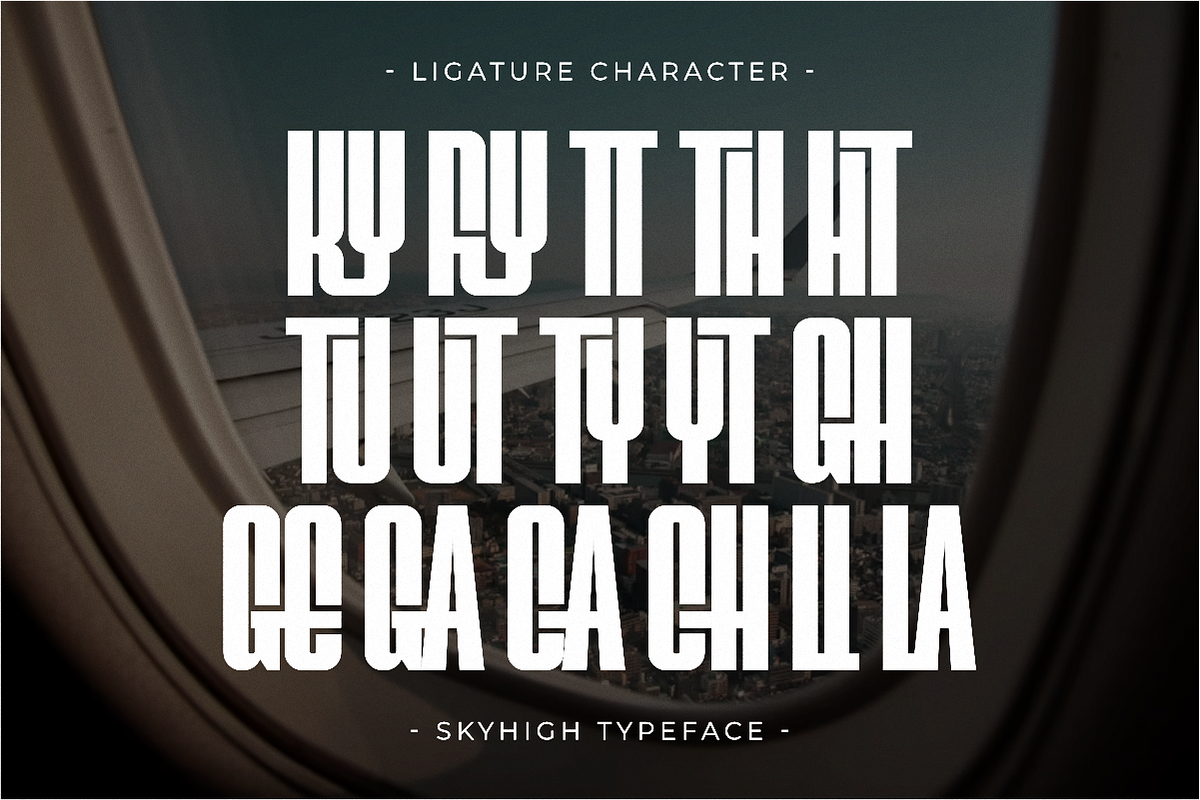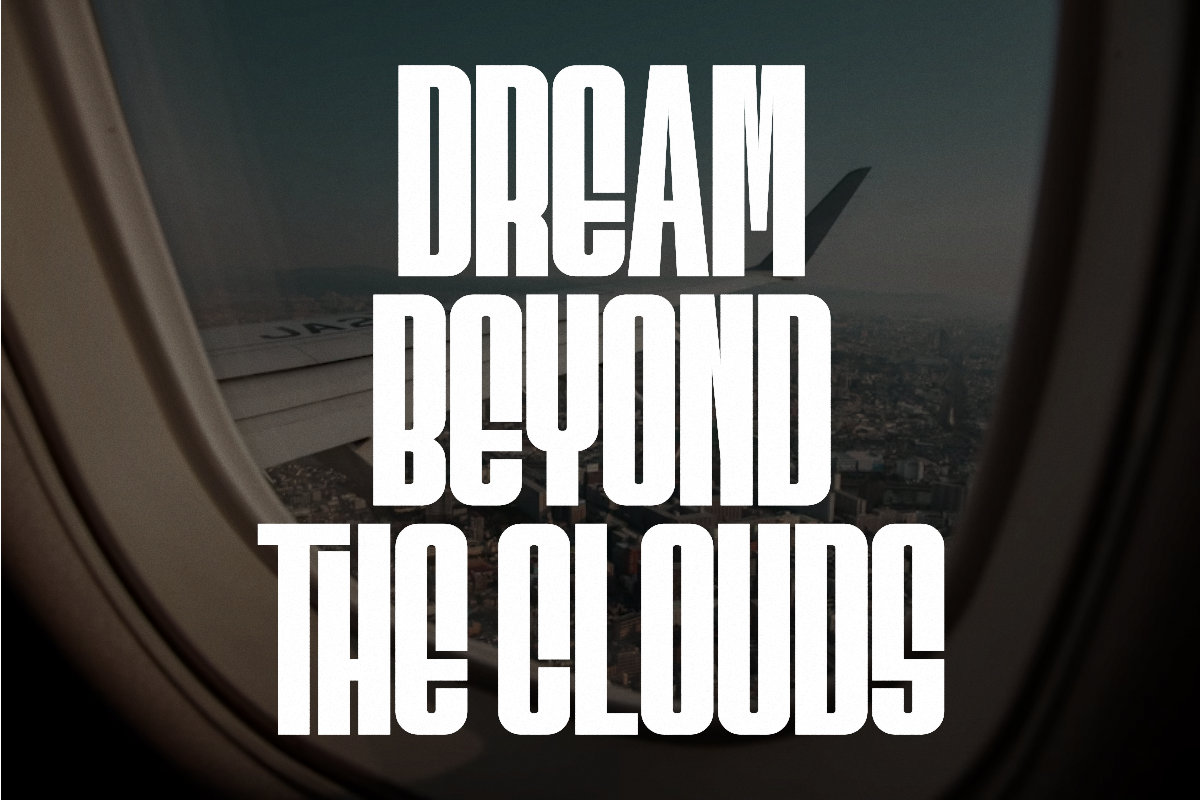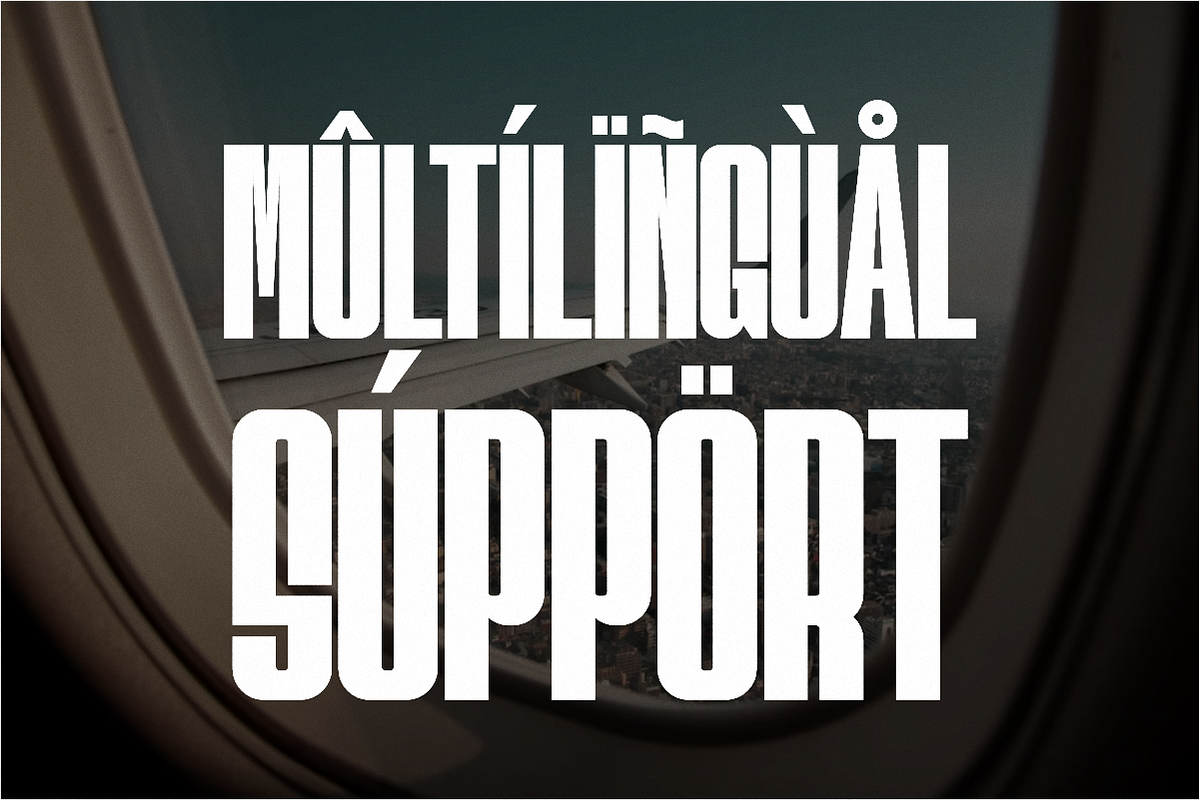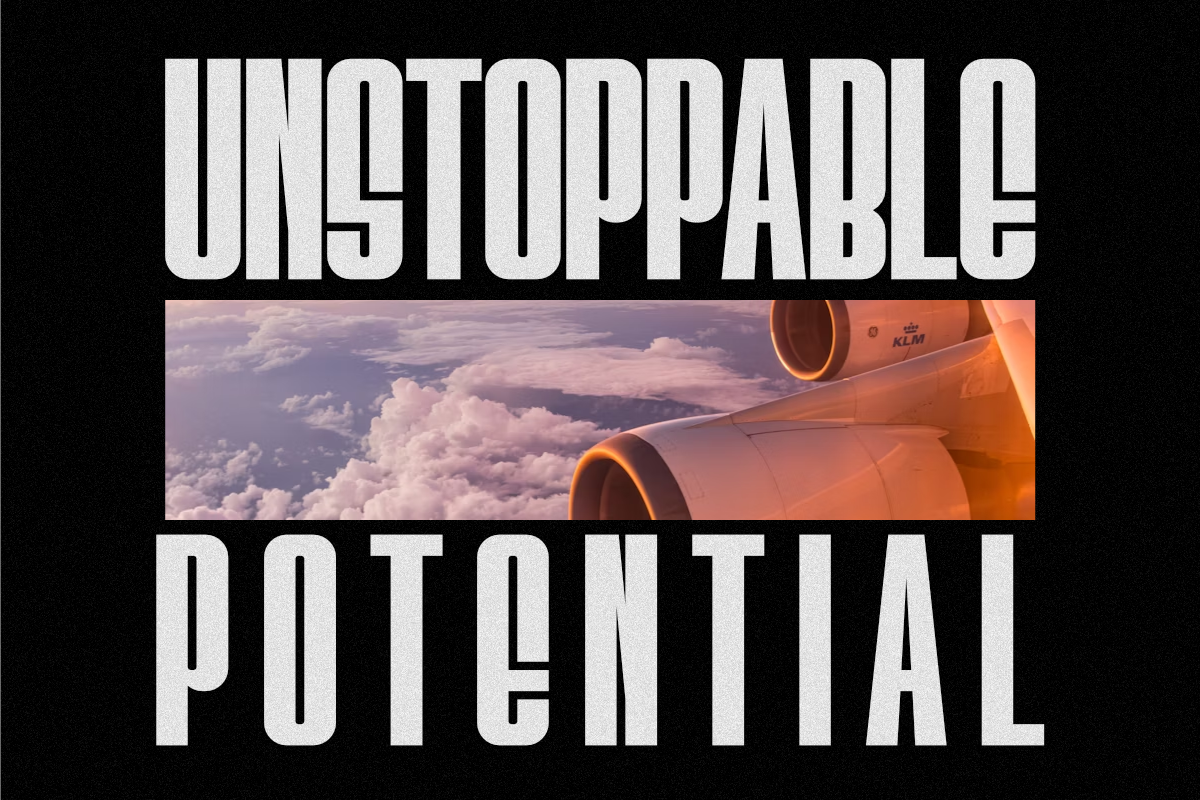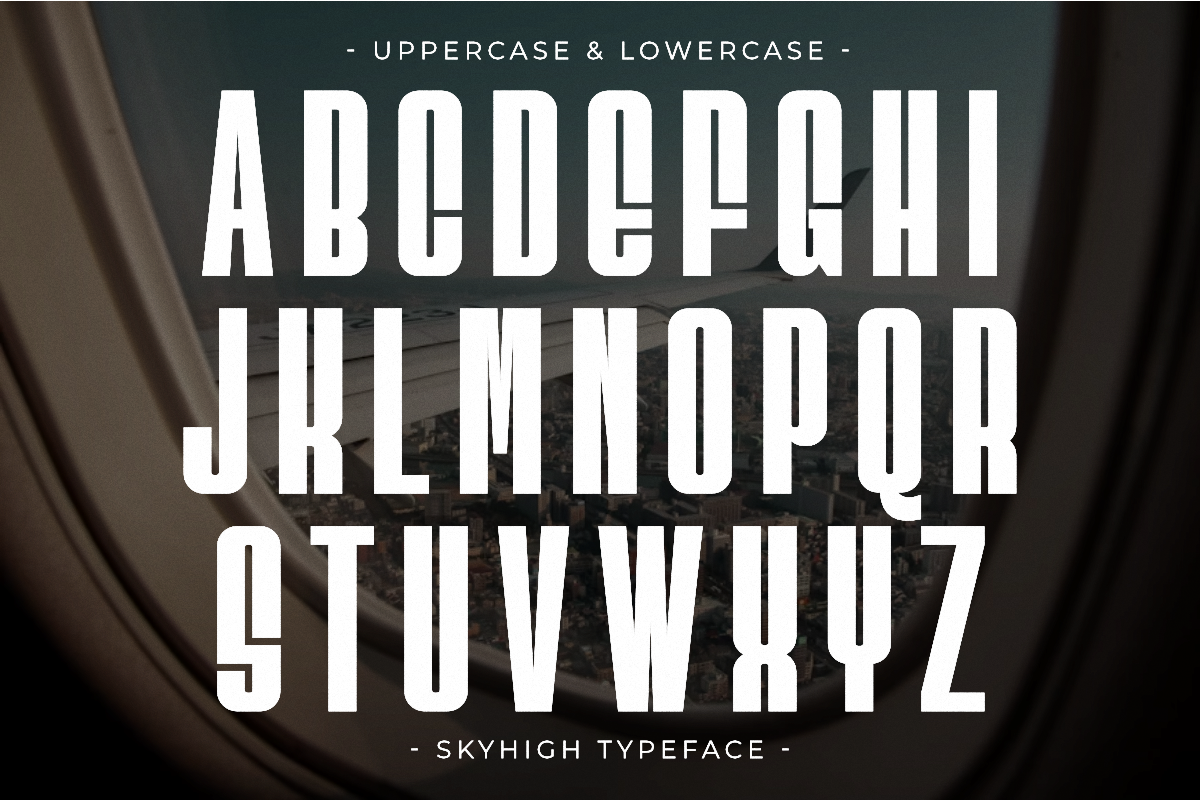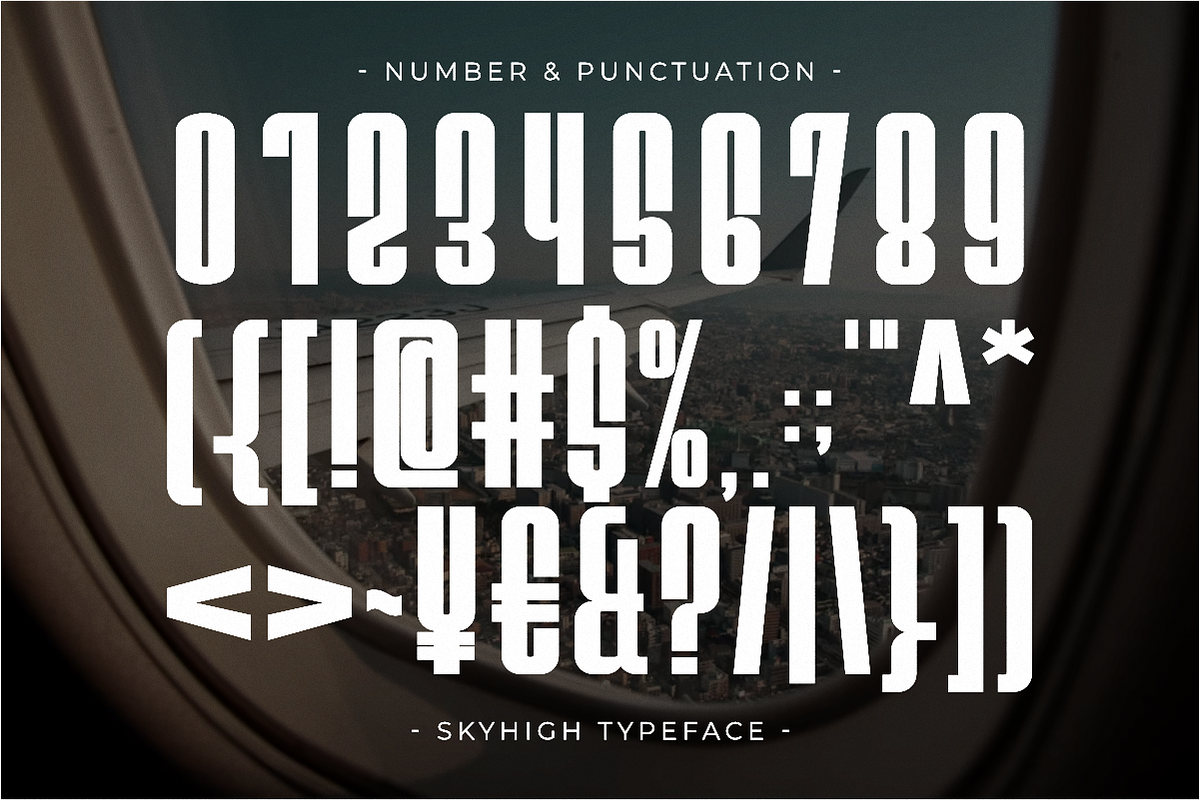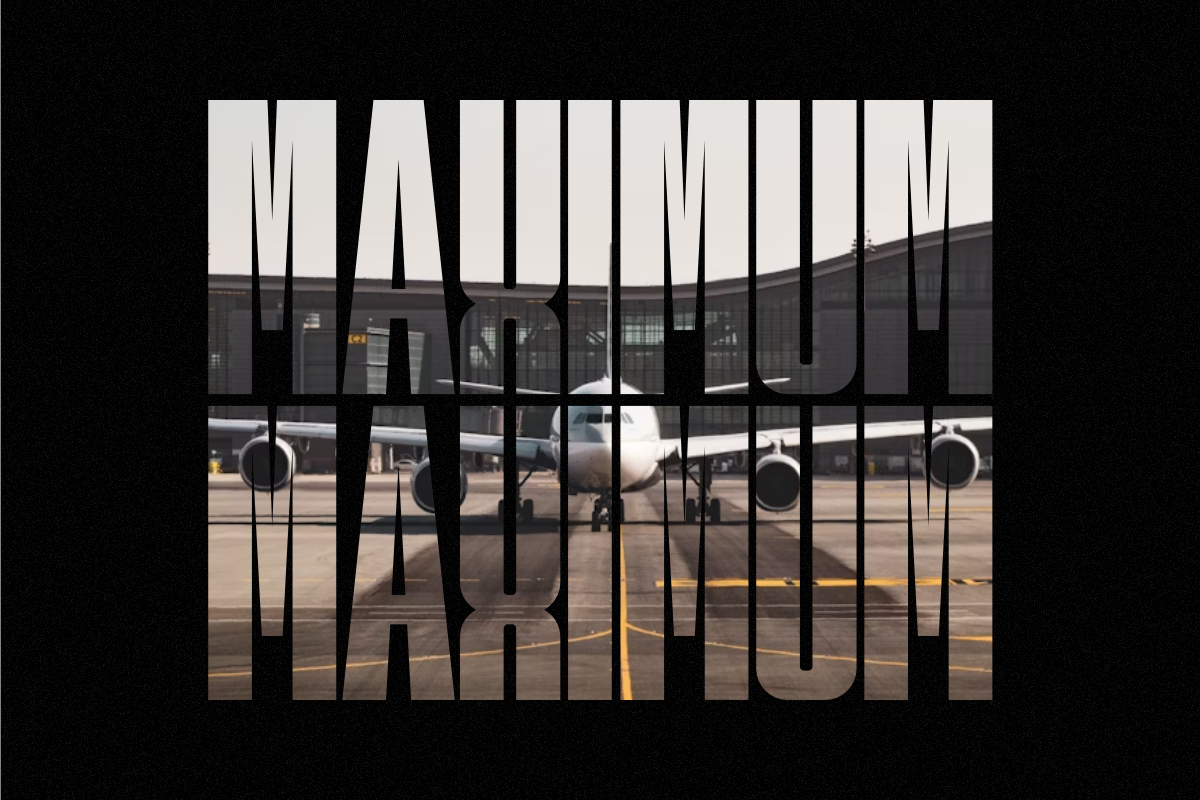
Skyhigh - Ultra Condensed Sans Serif
Skyhigh is a dramatic and sleek Ultra Condensed Sans Serif font defined by its extreme vertical height and unique, modern cut-out details. Designed for maximum visual impact, it is the perfect contemporary typeface for high-fashion, luxury branding, minimalist posters, and architectural design. This striking all-caps font includes subtle ligatures, ensuring a custom, elite aesthetic for magazine titles and dominant editorial layouts. Skyhigh delivers a strong, professional, and instantly memorable visual identity for any high-impact project.